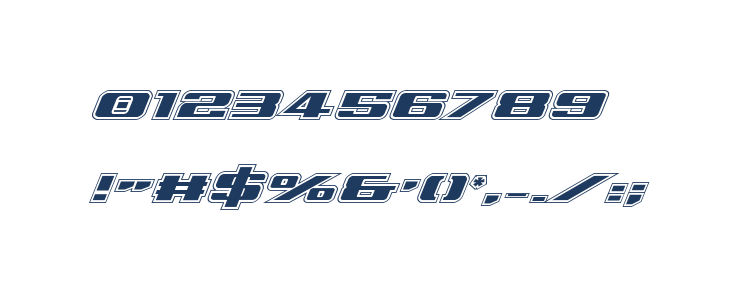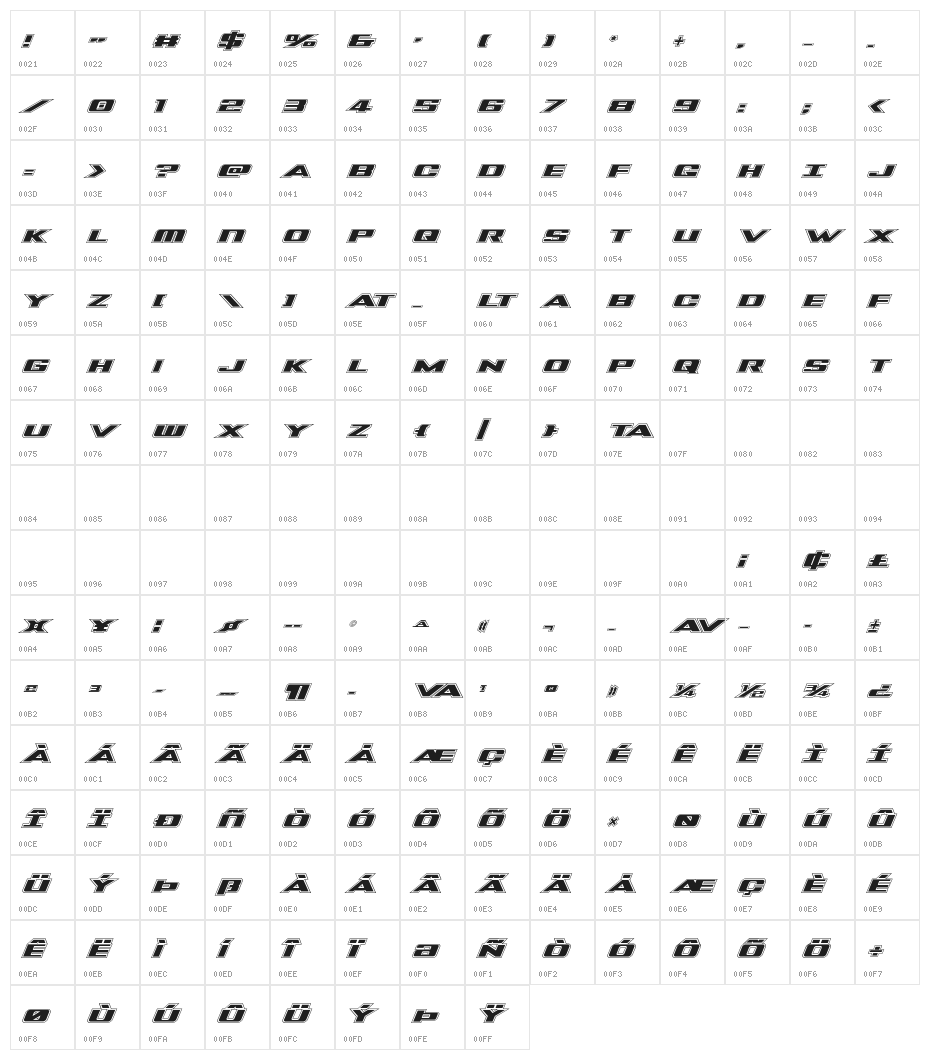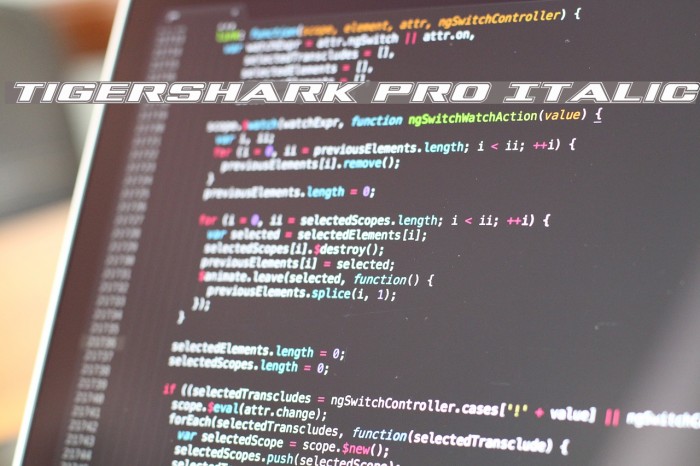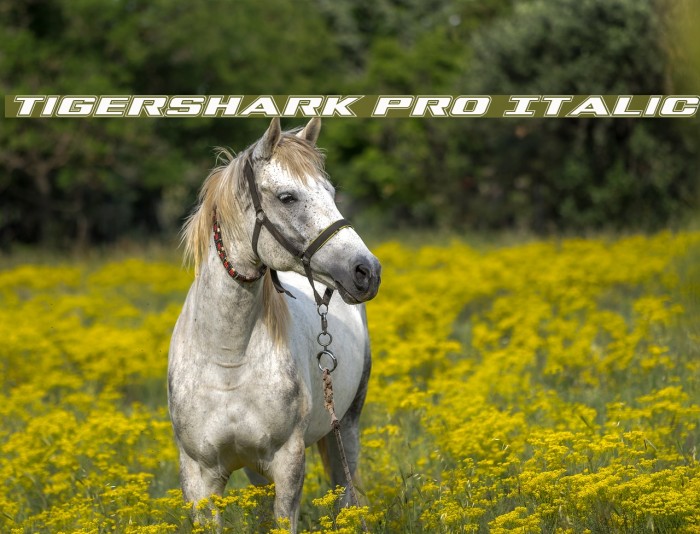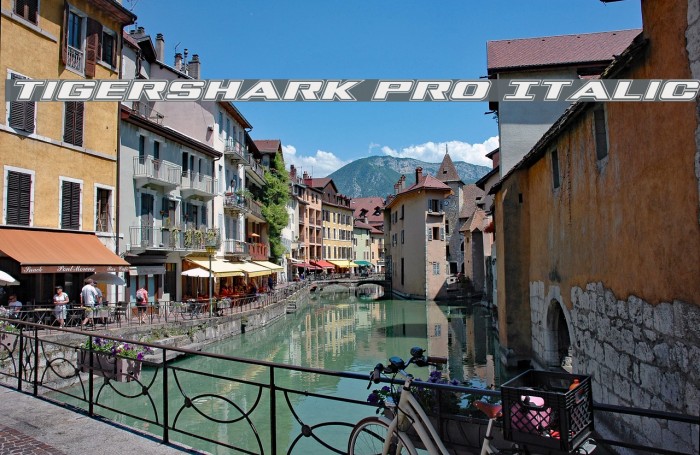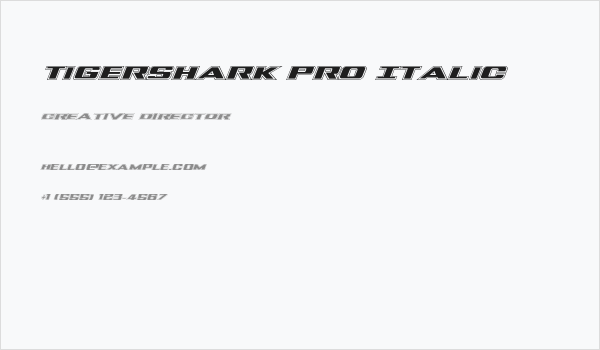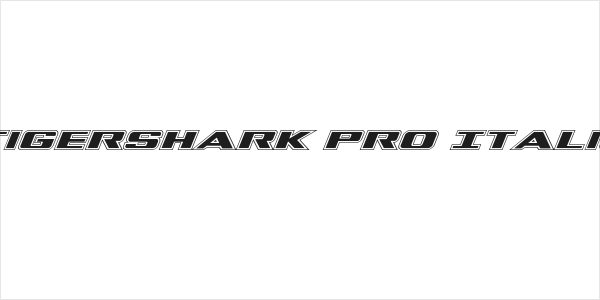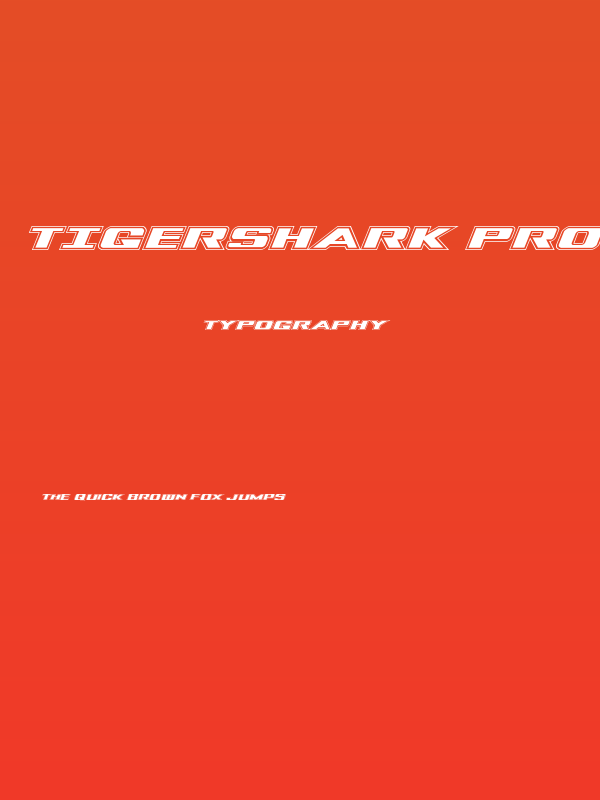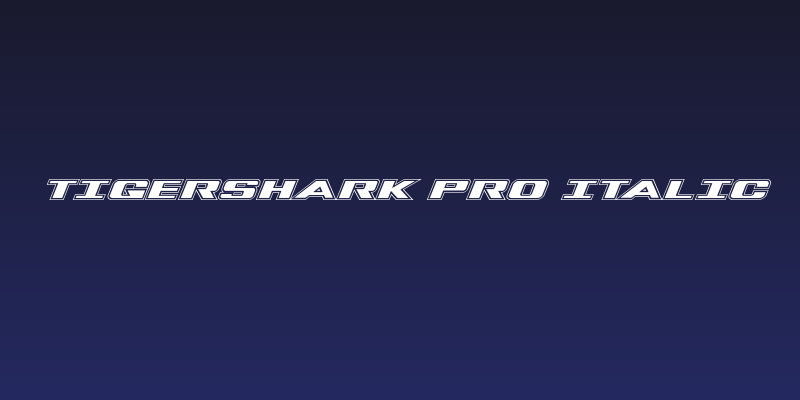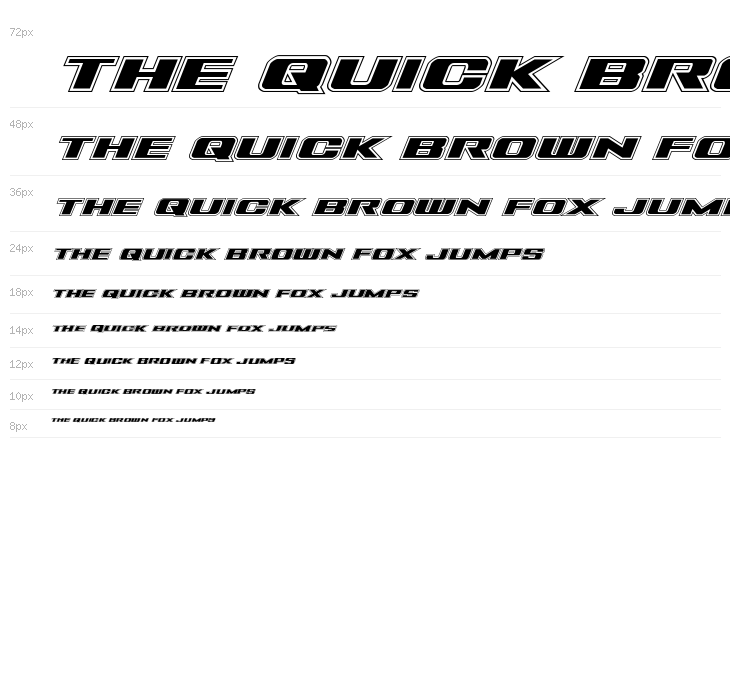
Tigershark Pro Italic Font
Tigershark Pro Italic Description
This font features a bold, italicized style with a distinct, sporty aesthetic. The characters are outlined, giving them a three-dimensional appearance that adds depth and dynamism. The uppercase and lowercase letters maintain a consistent slant, enhancing the italic effect. The numerals and special characters follow the same design principles, ensuring uniformity across all glyphs. The font's strong, angular lines and sharp edges contribute to its modern and energetic feel, making it suitable for attention-grabbing designs.
| Proposed Projects | Ideal for sports branding, dynamic posters, and modern logos. |